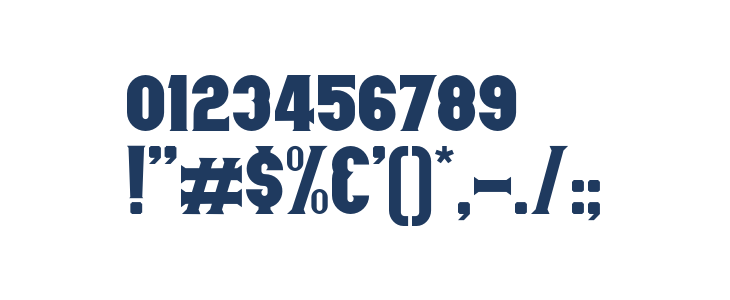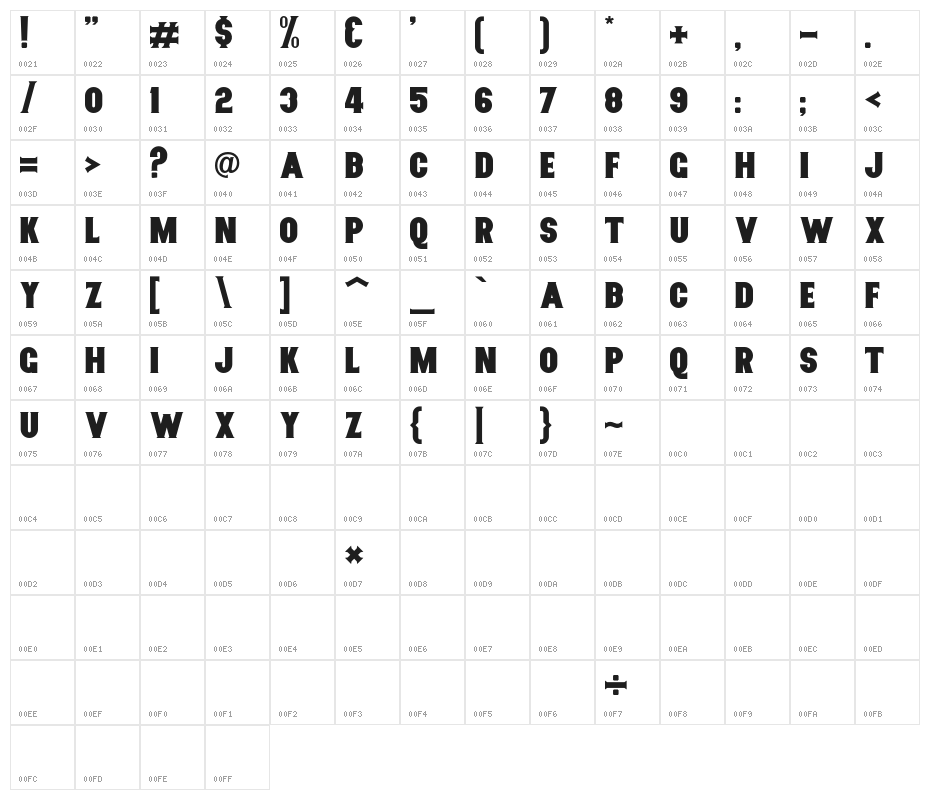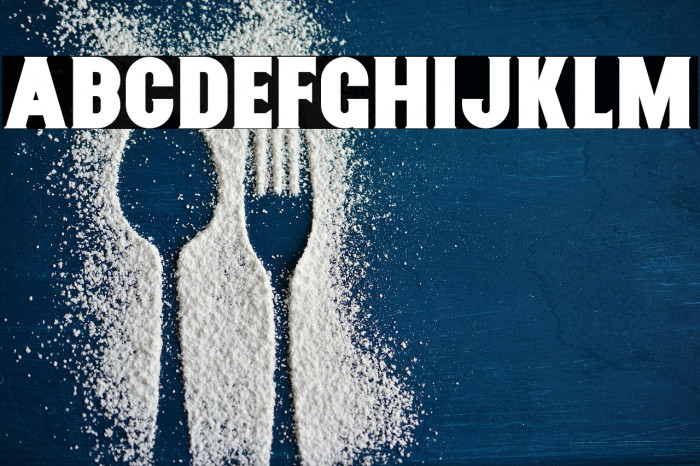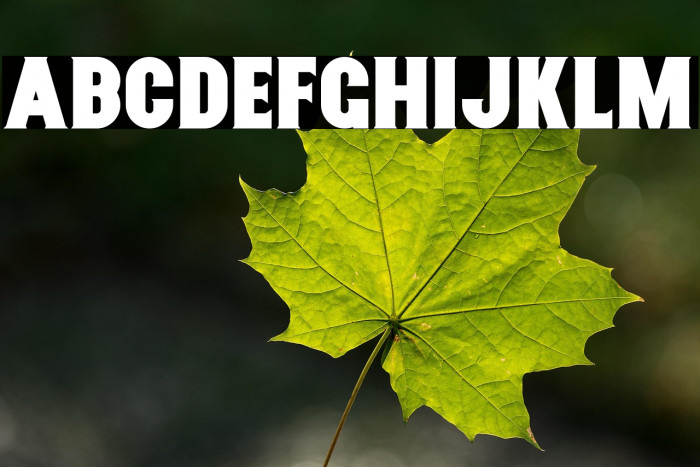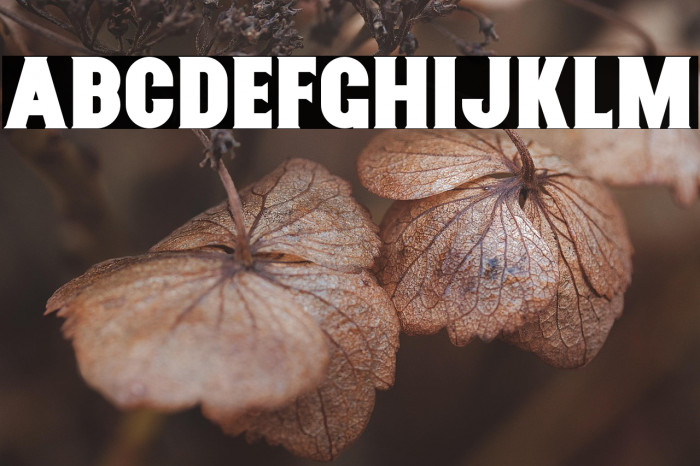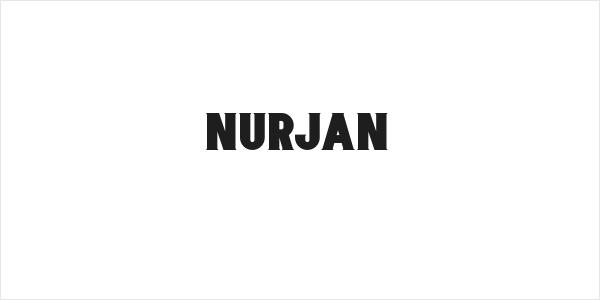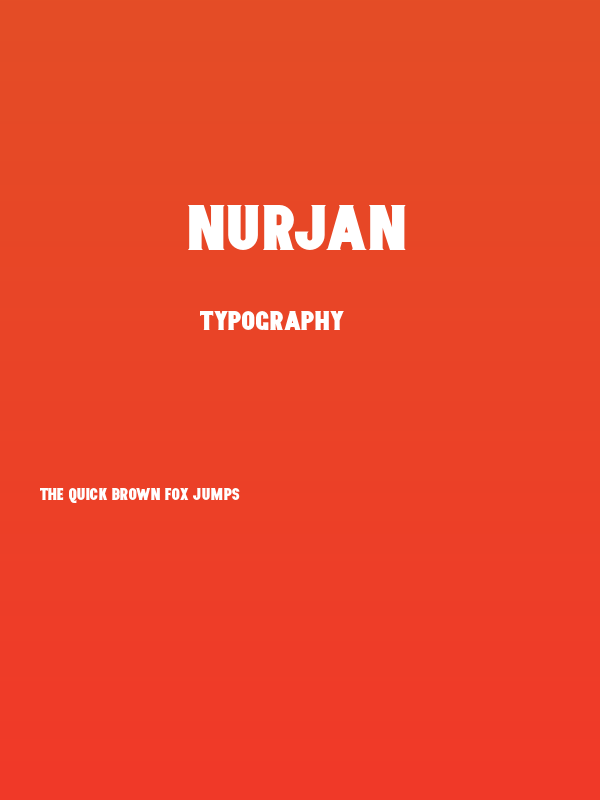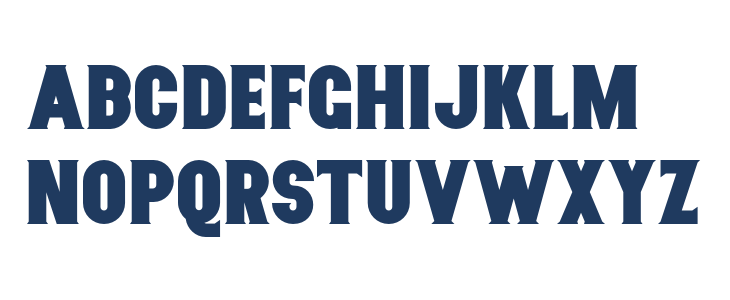
Nurjan Font
Nurjan Description
This font is characterized by its bold and impactful appearance, featuring thick, uniform strokes that convey strength and authority. The uppercase and lowercase letters are designed with a consistent width, creating a harmonious and balanced look. The numbers and special characters maintain the same boldness, ensuring readability and emphasis. The overall style is modern and assertive, making it suitable for projects that require a strong visual presence. The font's design is straightforward yet powerful, with a focus on clarity and legibility.
| Proposed Projects | Ideal for headlines, posters, branding, and any design requiring a bold statement. |